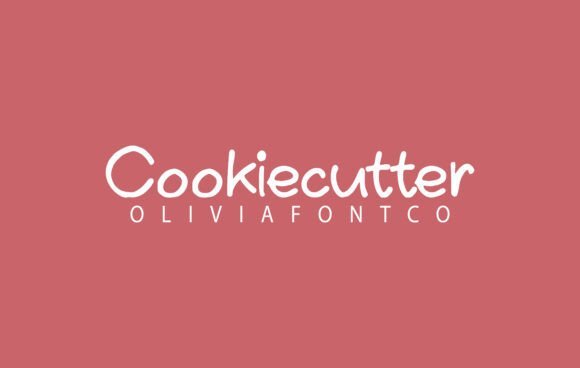
Introduction to Cookiecutter Font
Cookiecutter font is an authentic handwritten font with a romantic touch.
Key Features of Cookiecutter Font
Why Choose Cookiecutter Font?
Cookiecutter Font offers exceptional quality and versatility, making it a valuable addition to your design toolkit. Whether you’re creating for personal projects or commercial use, Cookiecutter Font delivers professional results.